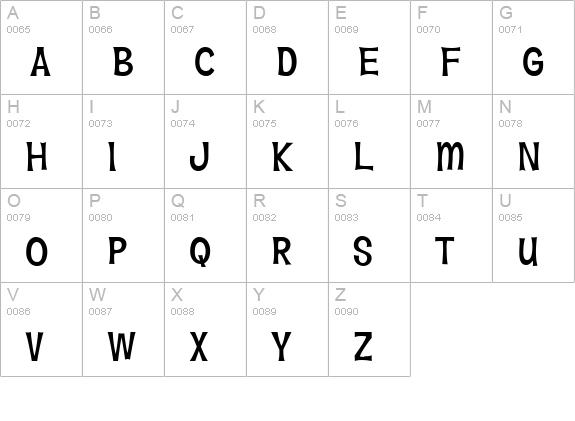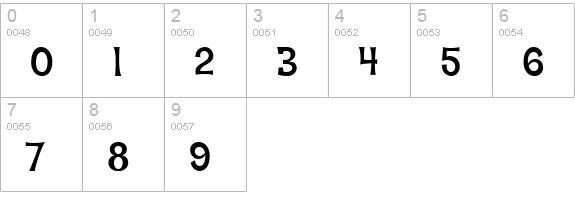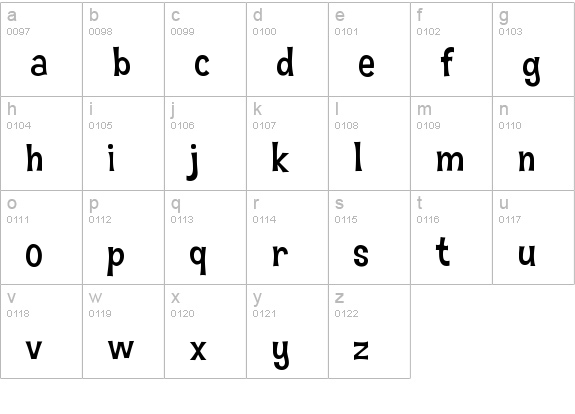
Introducing Hawaiian Aloha BTN Font, a captivating typeface that embodies the essence of the beautiful and vibrant Hawaiian islands. With its unique and intricate design, this font transports you to a world of tropical paradise, where the warm sun, refreshing ocean breeze, and the spirit of Aloha are ever-present. Hawaiian Aloha BTN Font features an exquisite blend of bold and flowing letterforms, inspired by the rich cultural heritage and natural beauty of Hawaii. Each character is meticulously crafted, capturing the elegance and grace of the Hawaiian language, making it perfect for any design project that seeks to evoke a sense of exoticism and tranquility. But what sets Hawaiian Aloha BTN Font apart is not just its stunning aesthetics, but also its accessibility. We believe that creativity should be free, and that's why we are thrilled to offer this extraordinary font as a gift to designers and enthusiasts alike. You can freely download Hawaiian Aloha BTN Font at FontsMarket.com, where it awaits to bring your projects to life with its distinct charm and versatility. Whether you're designing a tropical-themed invitation, a beach-inspired logo, or simply adding a touch of Aloha to your creative endeavors, Hawaiian Aloha BTN Font is the ideal choice. Its remarkable legibility and artistic flair make it perfect for a wide range of applications, from digital designs to print materials and beyond. So why wait? Unleash your imagination and infuse your designs with the spirit of Hawaii by incorporating Hawaiian Aloha BTN Font. Download it for free at FontsMarket.com and embark on a visual journey that will transport you to the enchanting world of the Aloha spirit.